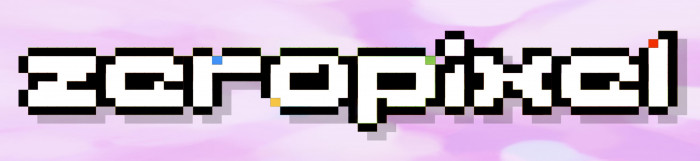
zerotime pixelized. Uppercase added.
This could fit very well in a pixel-based video game as a title.
@BWM: Thanks, pal! That was my first feeling. This little pixelation has been a really relaxing font waiting for my new computer... 🖥️
@elmoyenique - Congratulations on this wonderful design!  :^)
I wonder if it'd be possible to have a version of this, but only the insides of the letters so we can do two-coloring or color the inside of the text?
Congratulations! FontStruct Staff have deemed your FontStruction worthy of special mention. “zeropixel eYe/FS” is now a Top Pick.
@Bryndam W. Meyerholt: Nowadays, it's common to find color fill tools in image processing programs, but I'm tempted to take your advice and create a font with the zeropixel fill. In the next few days we will see if I take this forward or not. 🤔 Thanks.